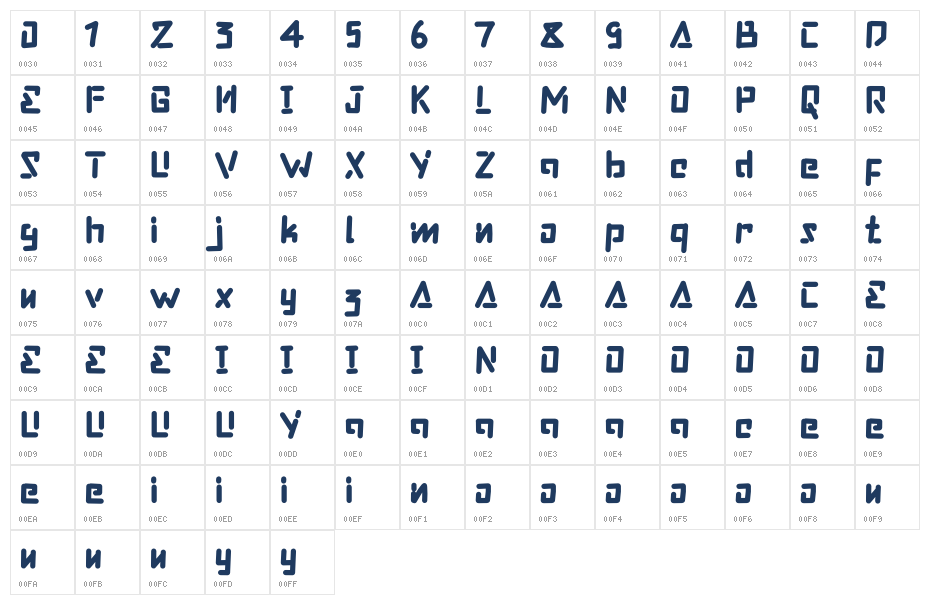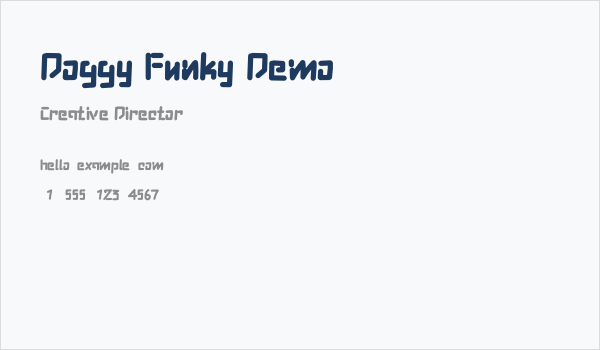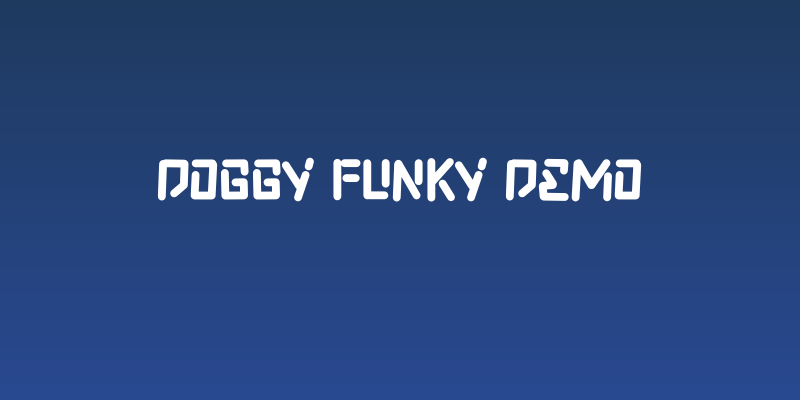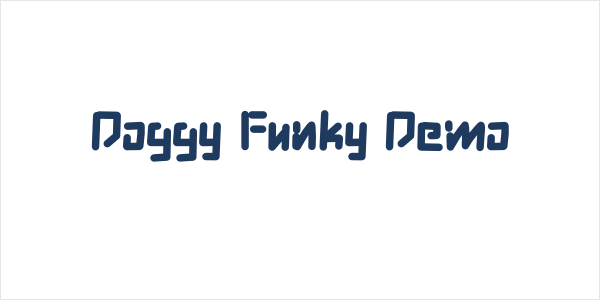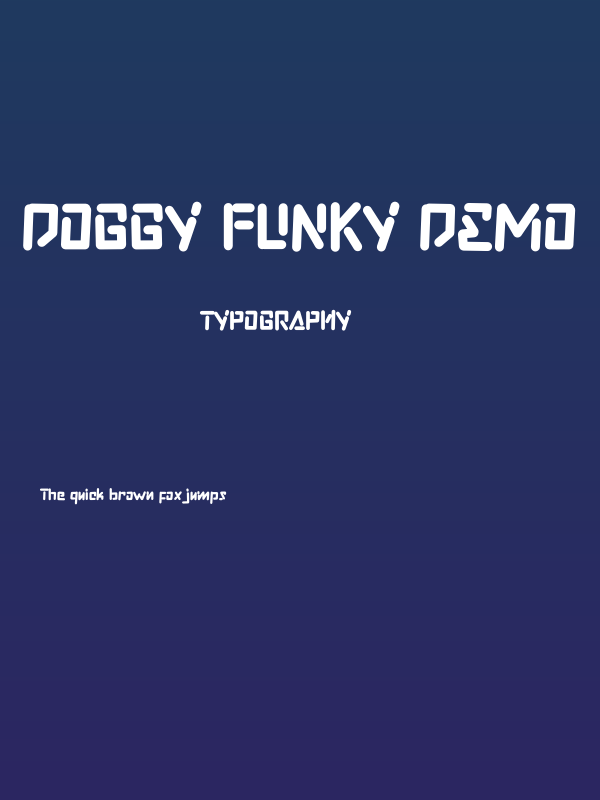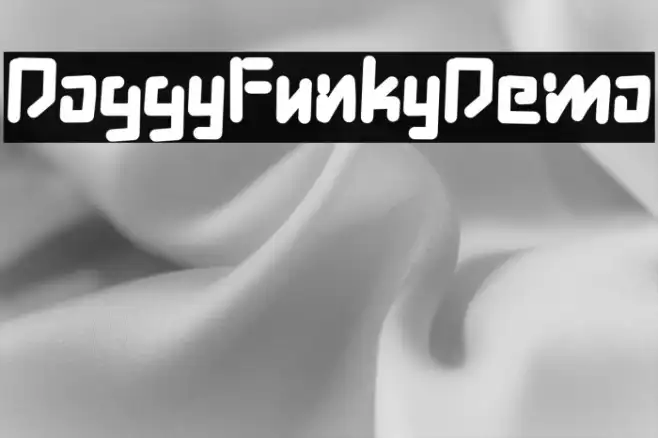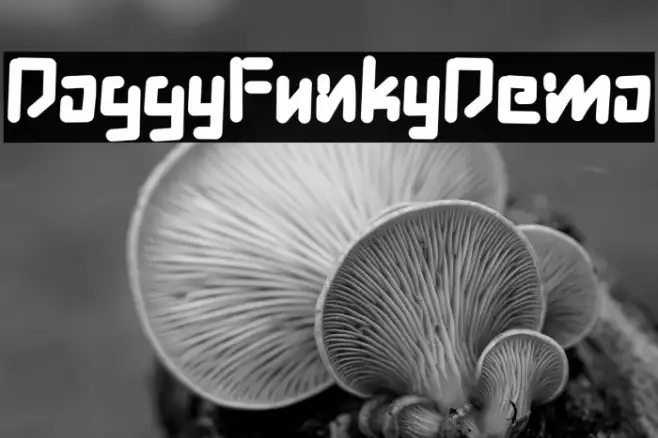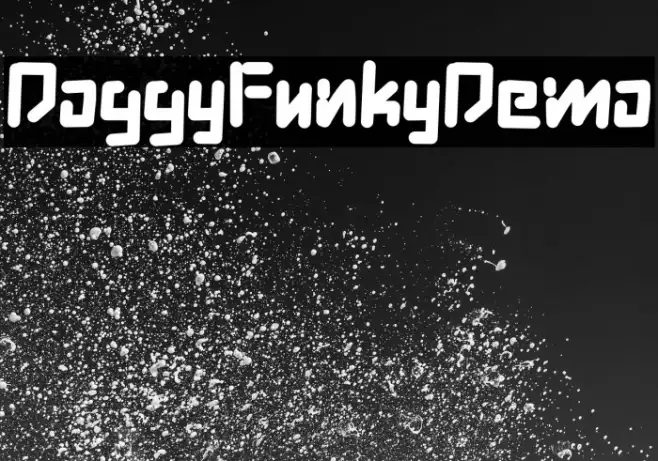
Doggy Funky Demo Font
Doggy Funky Demo Description
A bold, playful, and rounded display font with a futuristic and tech-inspired style, featuring irregular shapes and a slightly chunky appearance.
| Overall Style | Futuristic, Playful, Modern |
| Use Case | Headlines, Logos, Posters, Digital media |